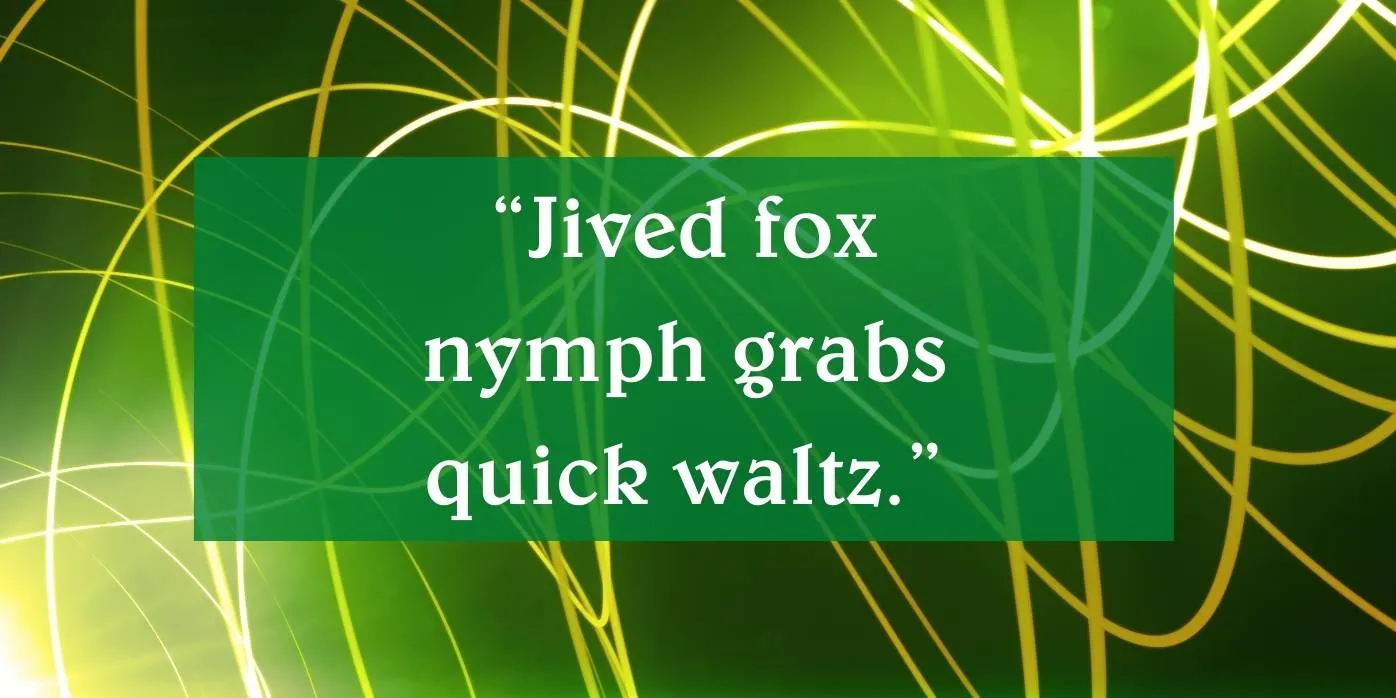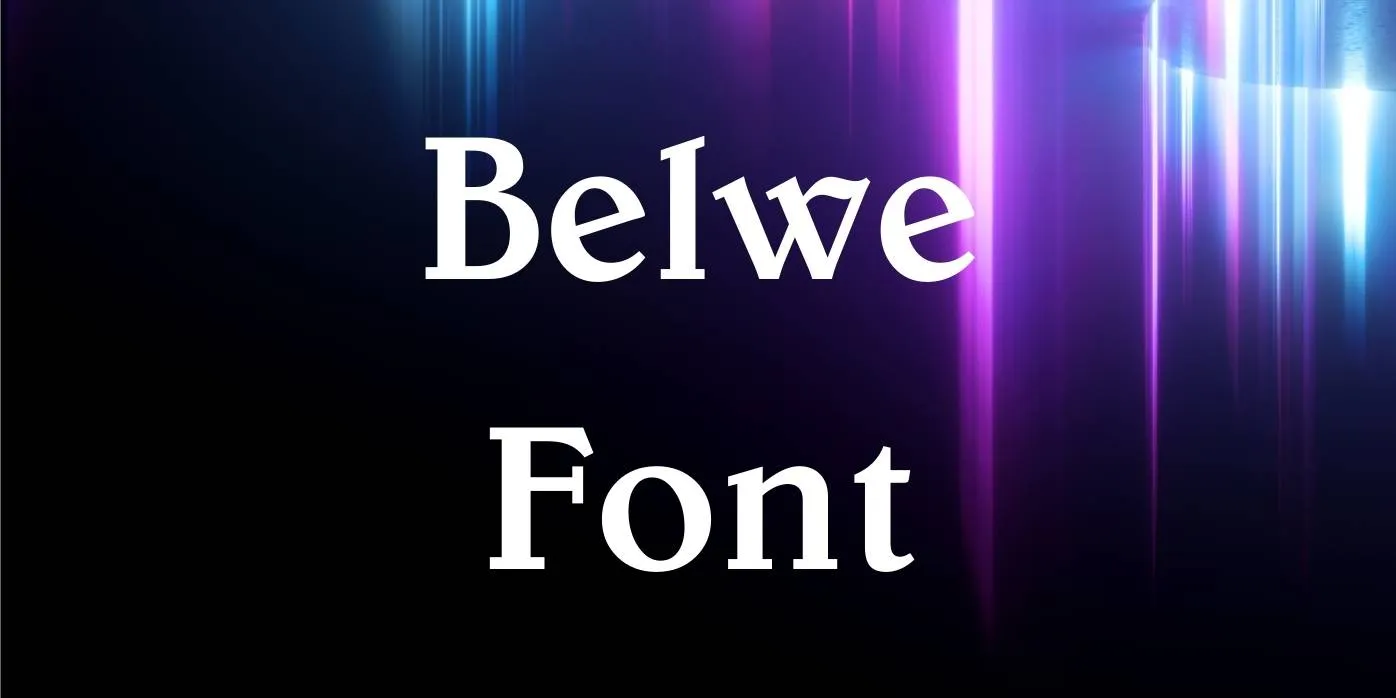
Belwe Font
Belwe Font was designed by Bitstream Inc. This classy typeface belongs to the Display typeface. It has a tall x-height and features a slight contrast in stroke weight, which gives it an interesting look. It also contains small caps, ligatures, and old-style figures.
This typeface is suitable for Adobe Photoshop, Canva, and CorelDRAW. It is ideal for use in the display text. Its high x-height makes it legible in smaller sizes, while its stylish design will add a touch of class to any project. Its different styles and Glyphs make it popular and famous.